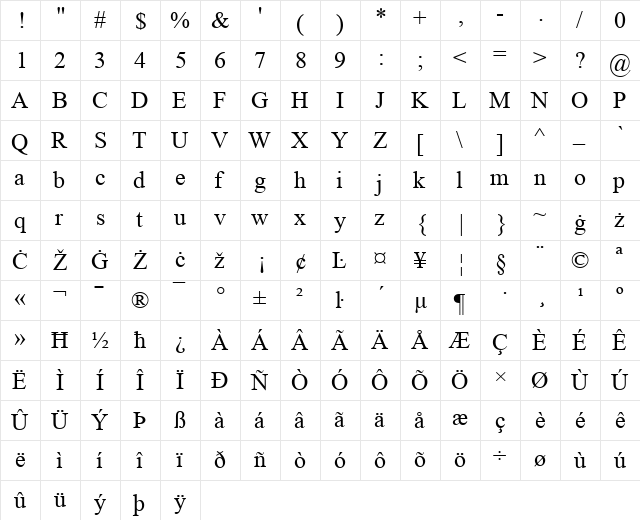
Temps Euro-Catalan Regular
Design Context for Temps Euro-Catalan Typeface
Temps Euro-Catalan is a composed and adaptable typeface that performs quietly and consistently across a wide range of design contexts.
Pro Tip: Use Temps Euro-Catalan in both headline and body roles to test its range before committing to a single application.